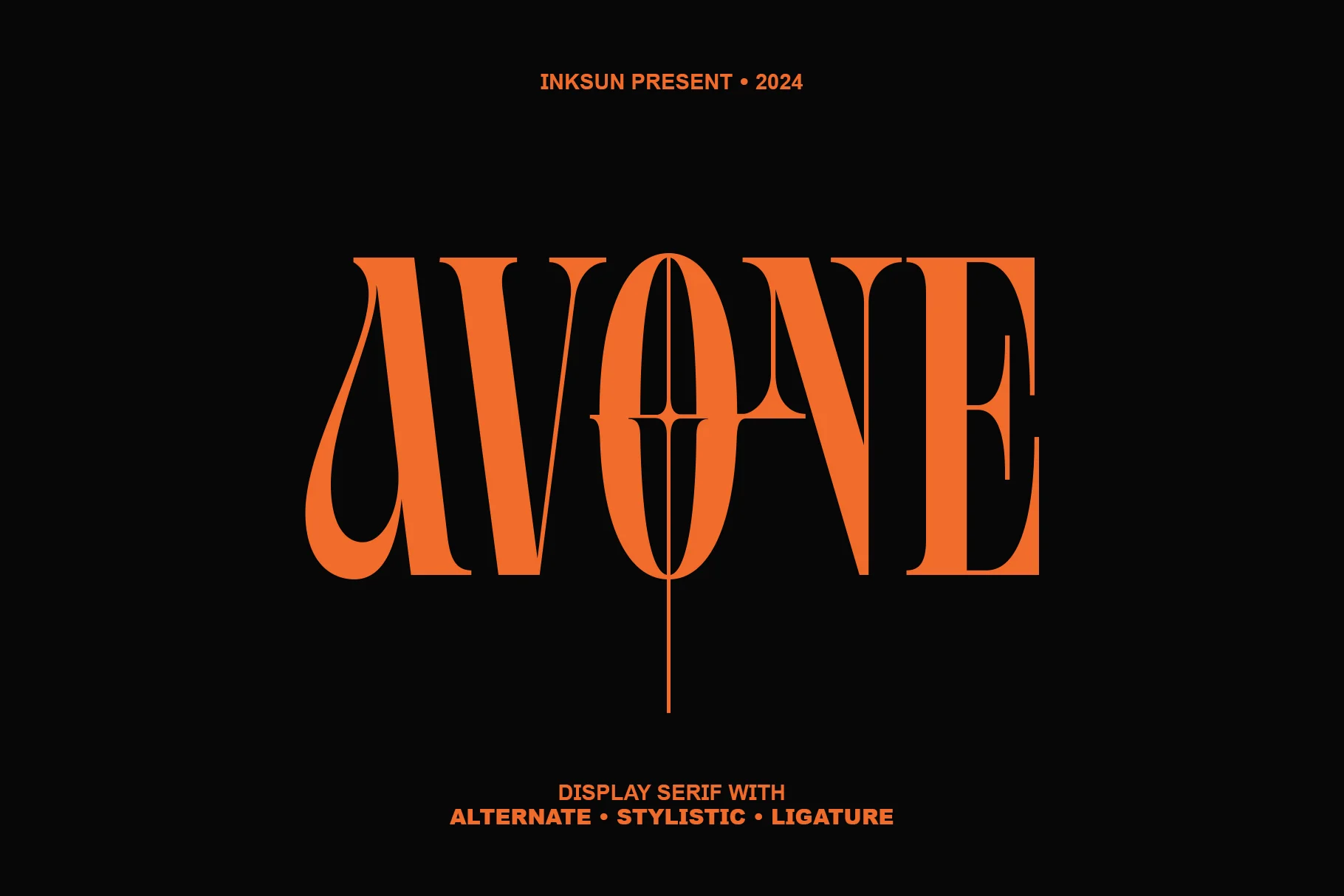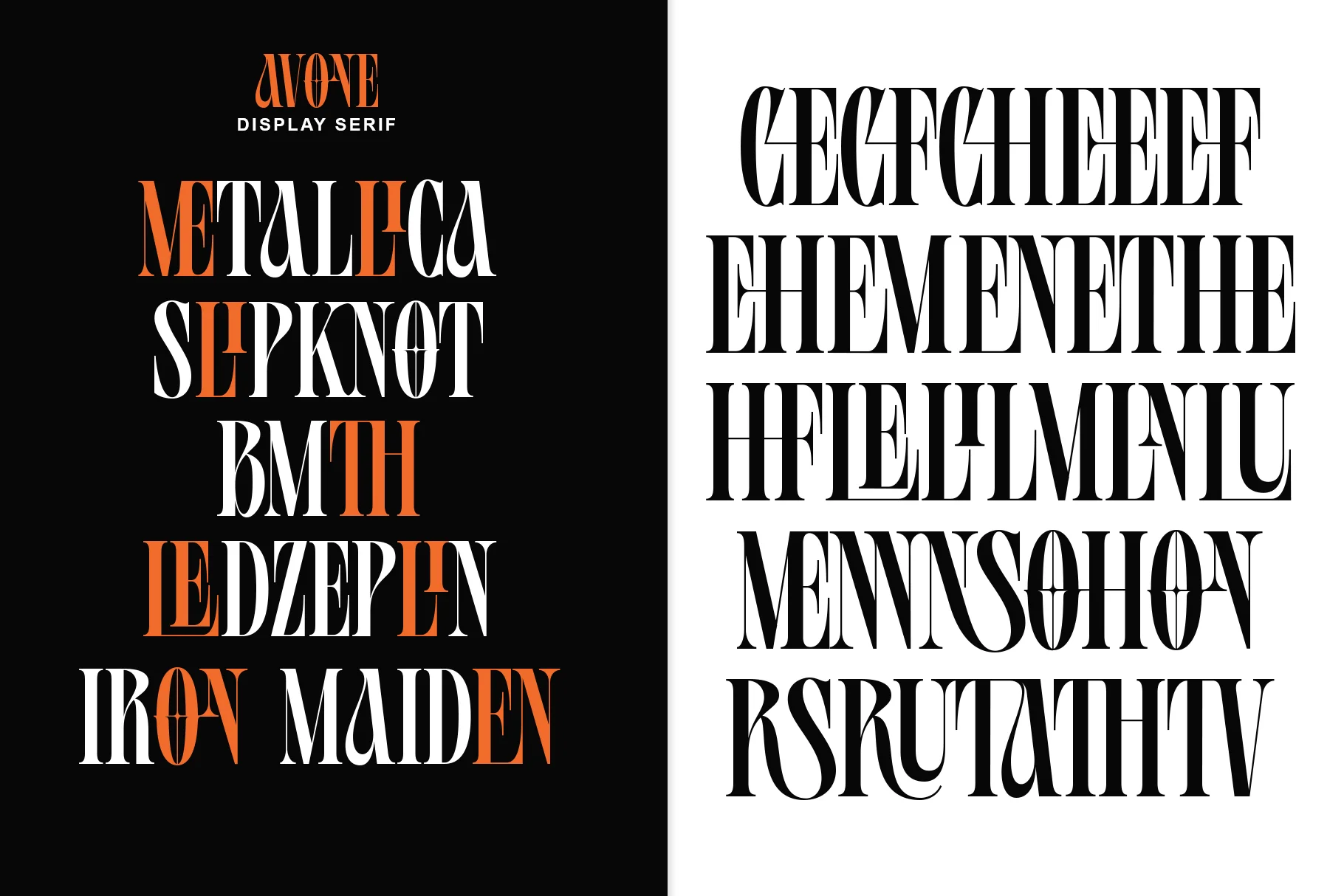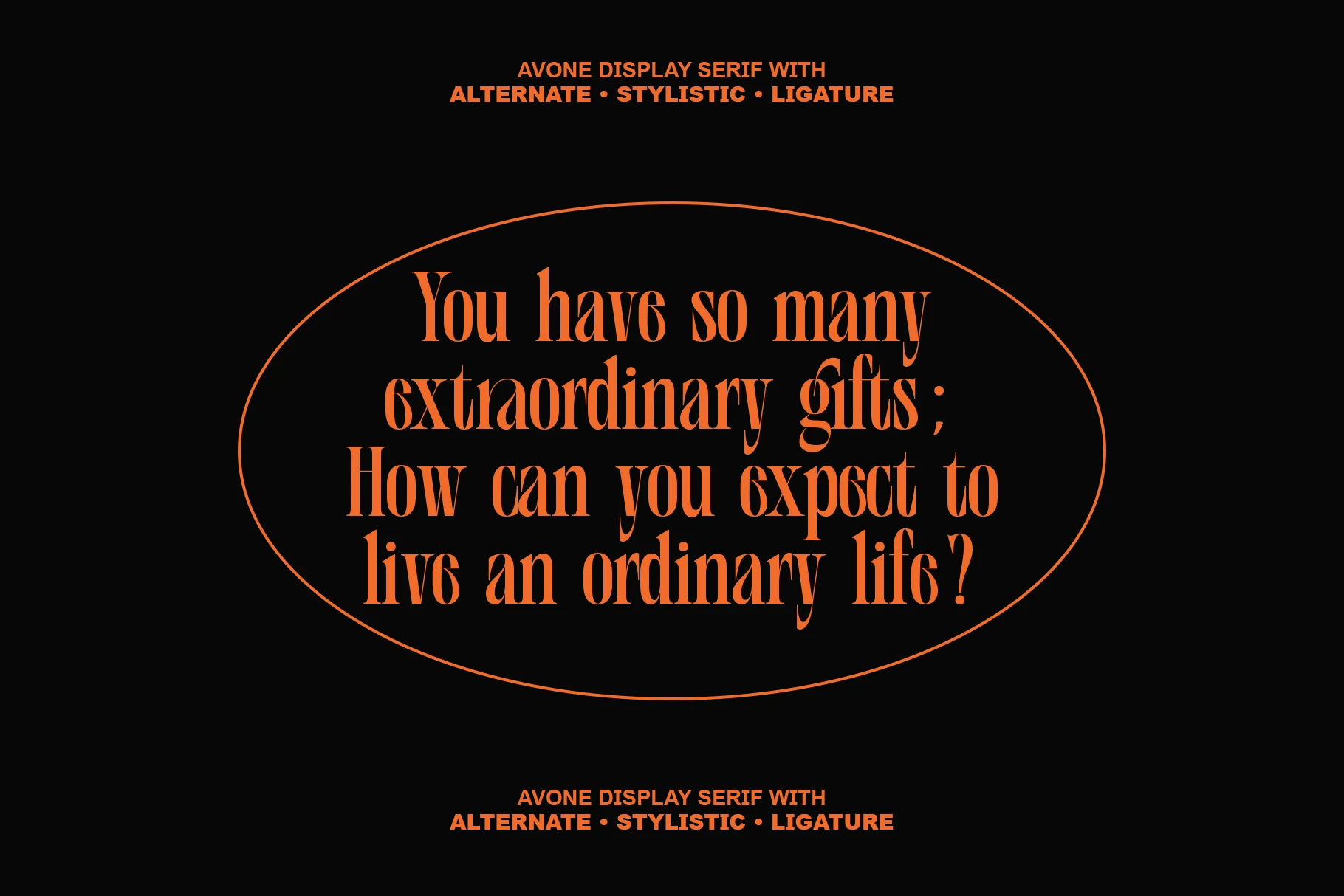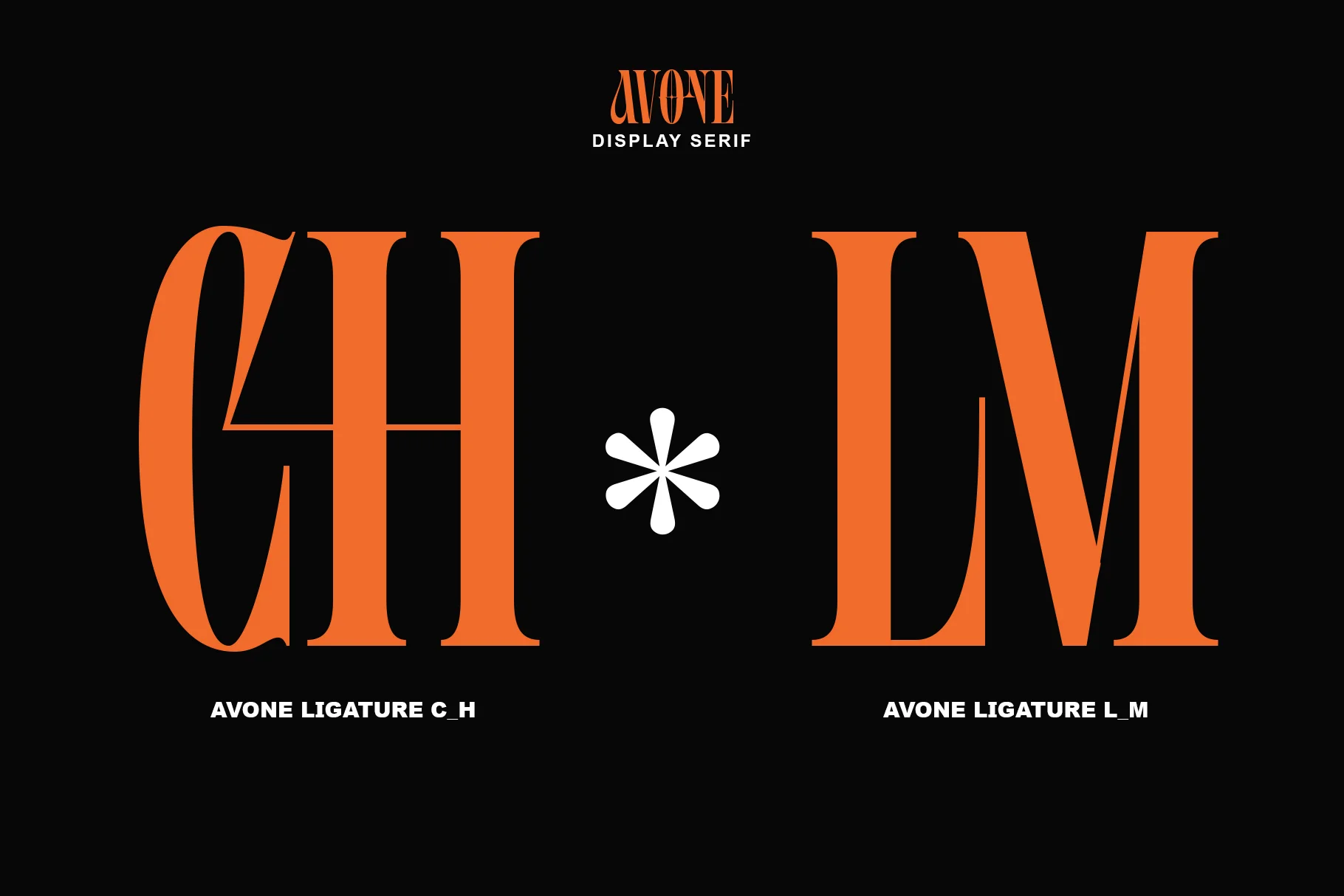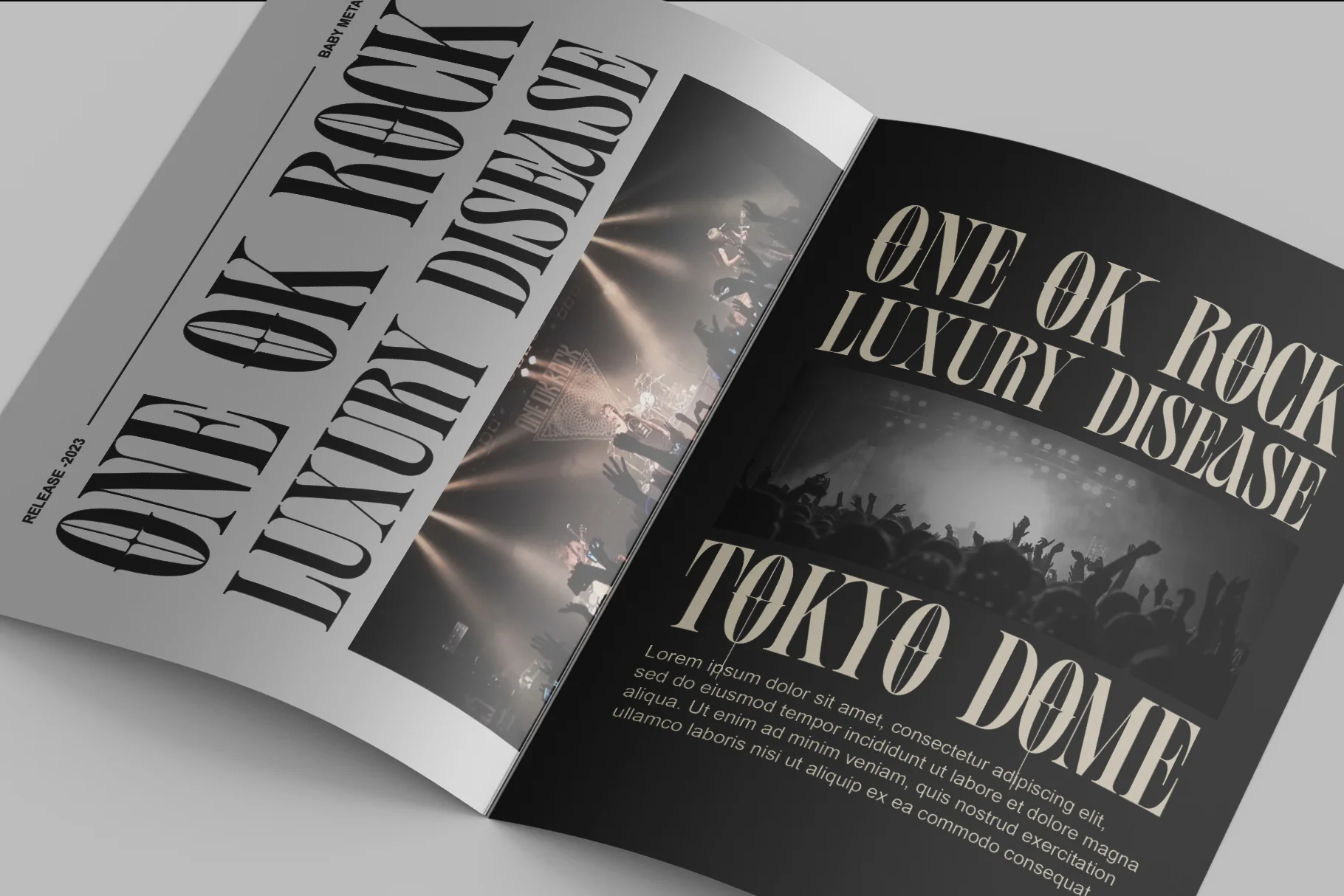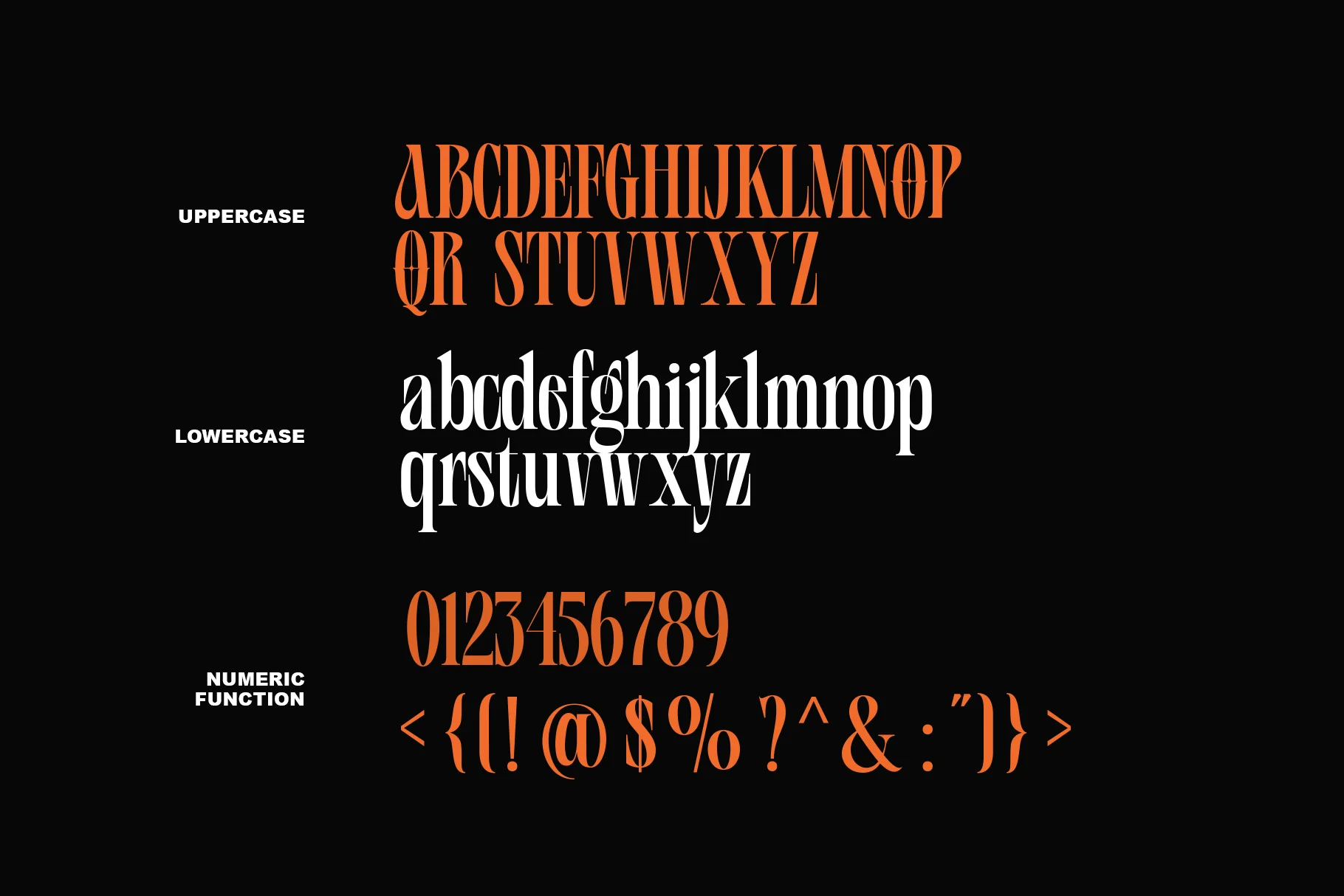
Avone
This is a modern display serif font with a strong, dramatic, and experimental character. Its letterforms feature extreme contrasts between thick and thin strokes, combined with tall and slender proportions, creating a fashion-forward and editorial feel. The serif details are sharp and bold, giving it a bold yet elegant feel.
The most prominent features of this font are its alternate, stylistic set, and unique ligatures—particularly visible in the "O" with its vertical axis extending downward, and the "A" with its drop-like or flame-like shape. These elements create a highly distinctive and artistic visual identity.
This font exudes a luxurious, avant-garde, and high-contrast feel, making it ideal for:
- Logo brand fashion dan luxury
- Headline editorial dan majalah
- Desain poster dan kampanye visual
- Identitas visual modern dan eksklusif
- Cover album atau artwork konseptual